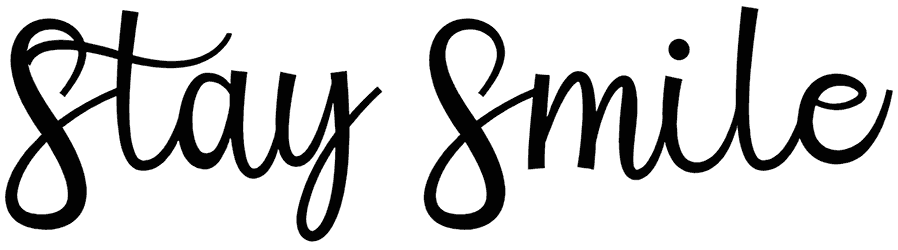
Stay Smile Font
Stay Smile is a minimal and beautiful calligraphy font that brings new brands to life and creates lasting designs. This script font is for designers who are interested in luxury spaces and want to present their writings…
Stay Smile is a minimal and beautiful calligraphy font that brings new brands to life and creates lasting designs. This script font is for designers who are interested in luxury spaces and want to present their writings in a luxurious format. The rhythmic twists in this calligraphic font are what can add character to your logos or turn your books into bestsellers on the shelves.